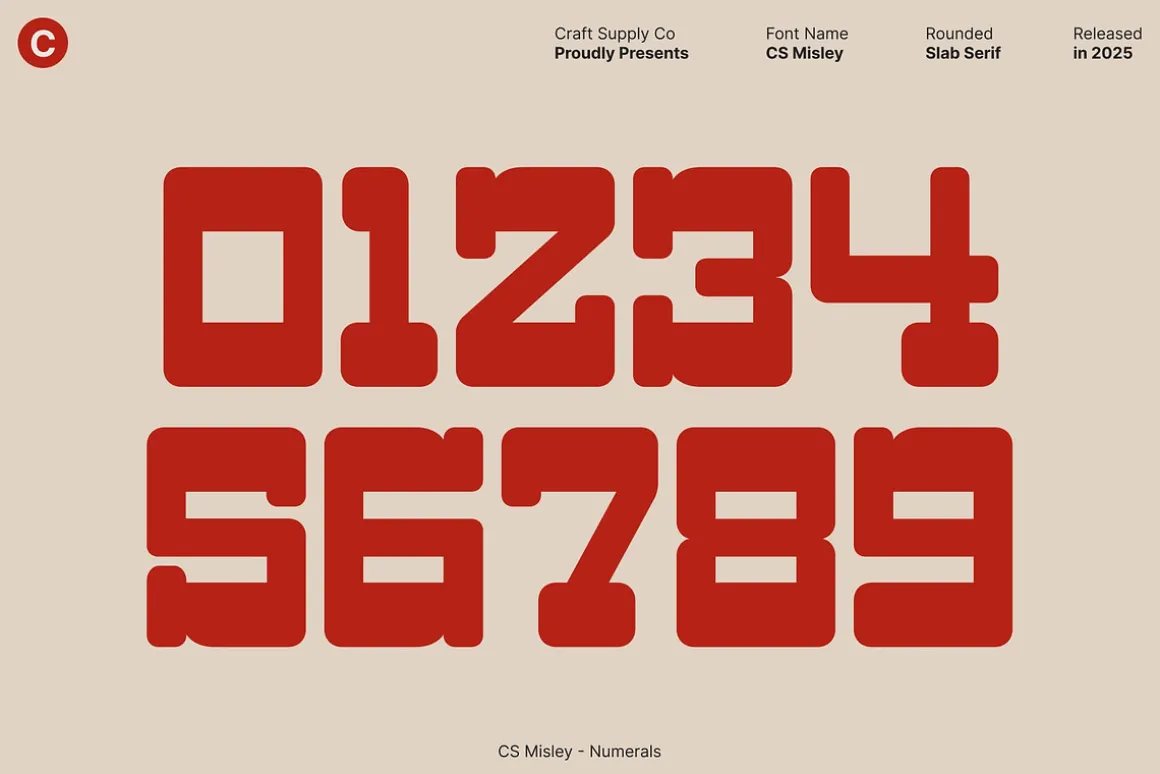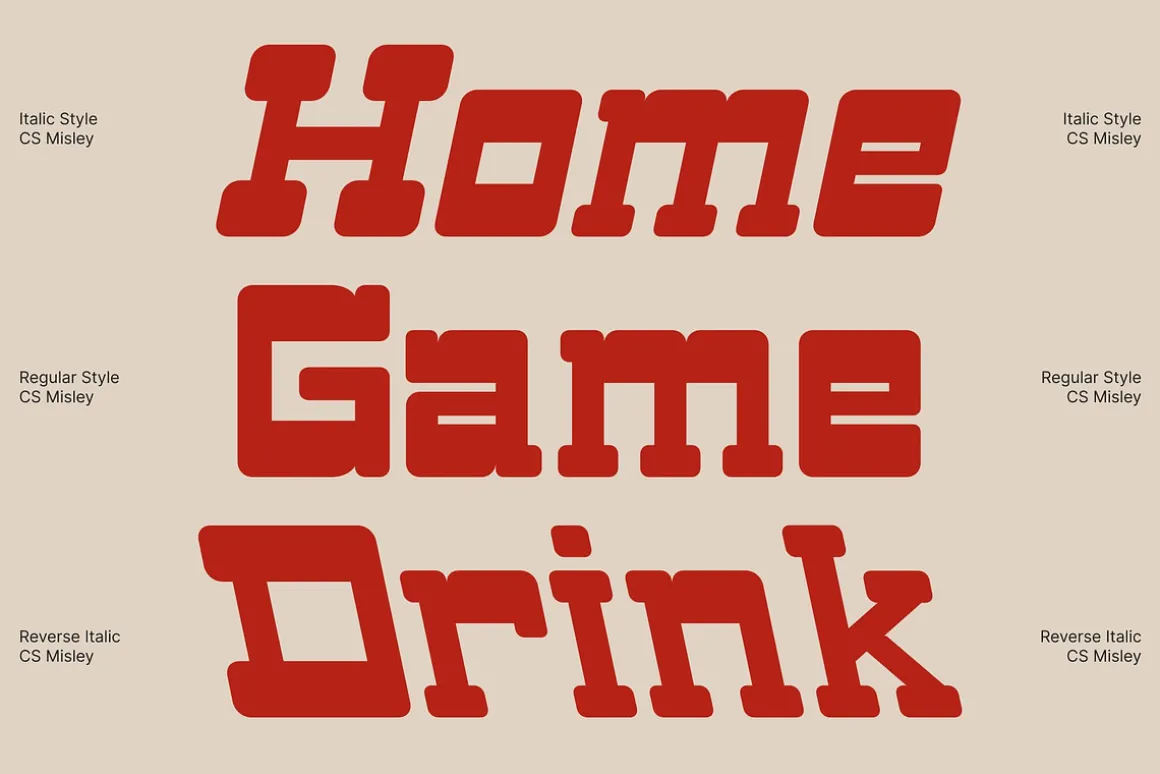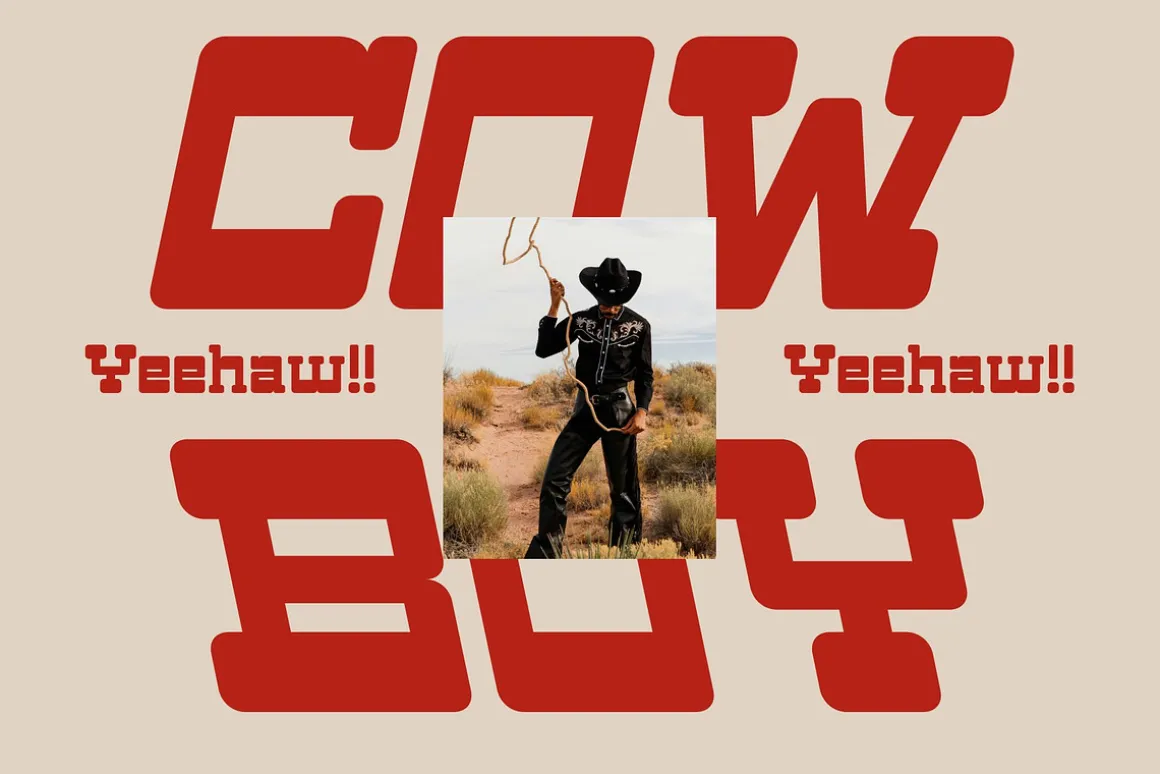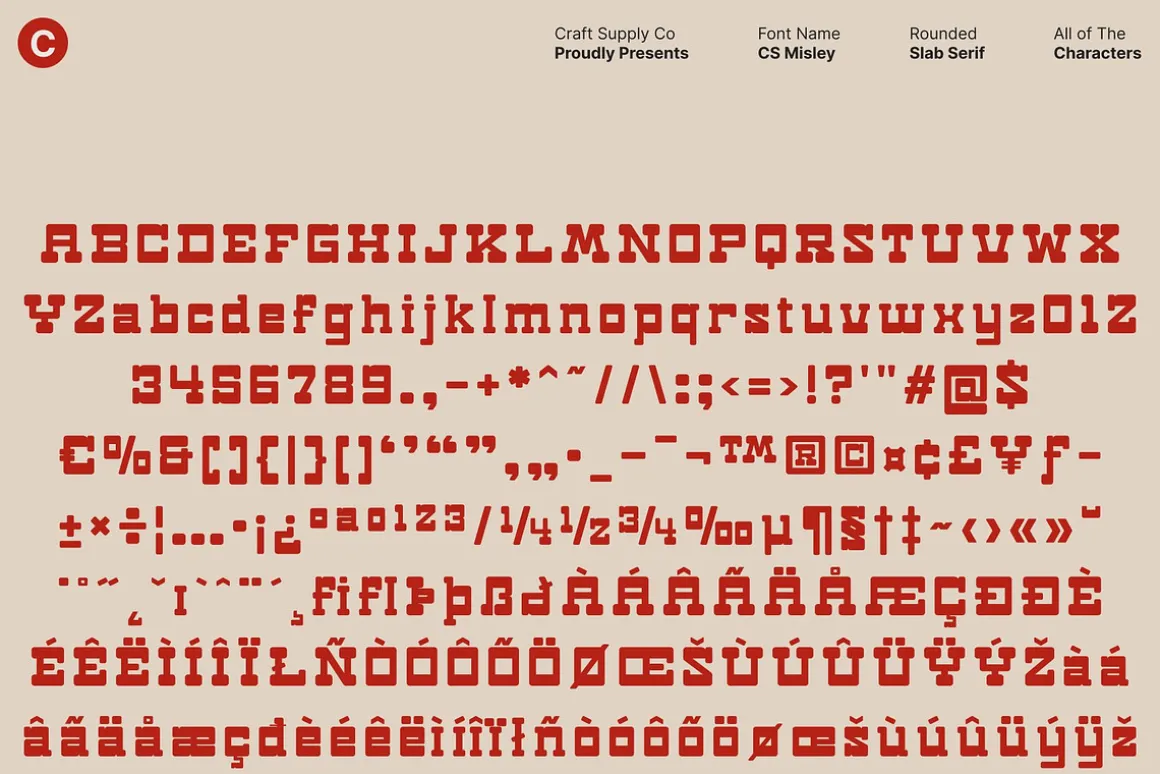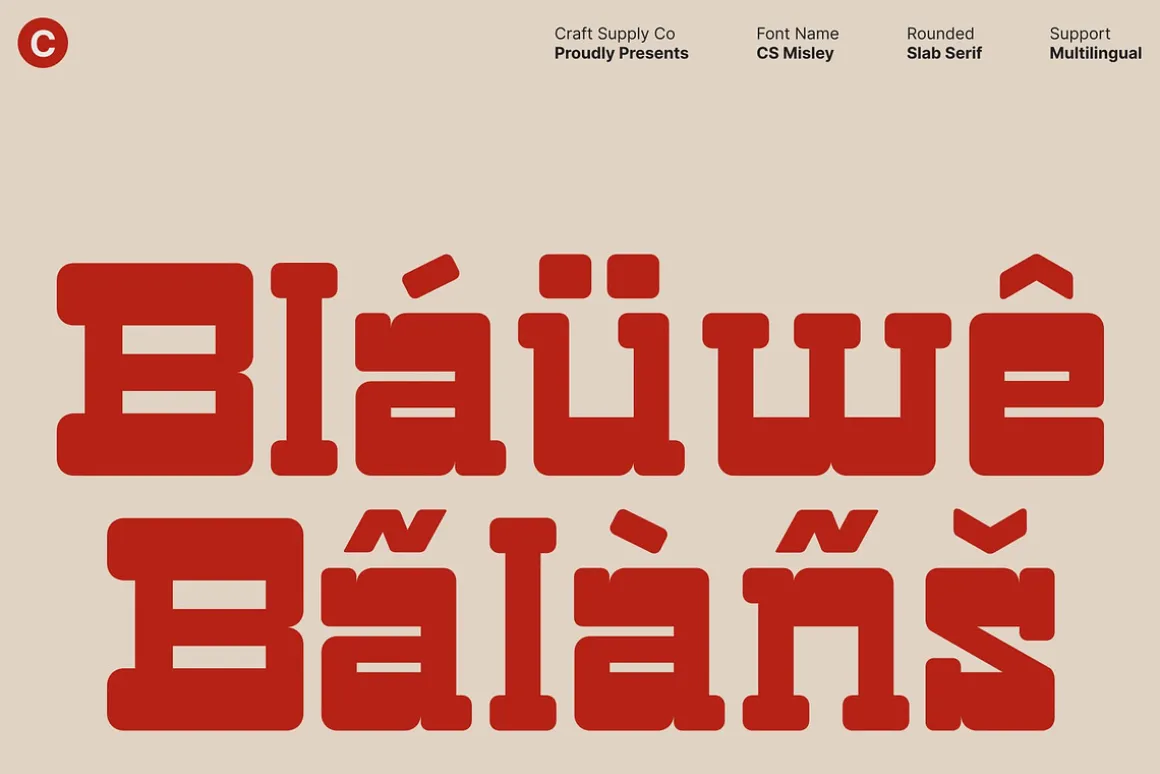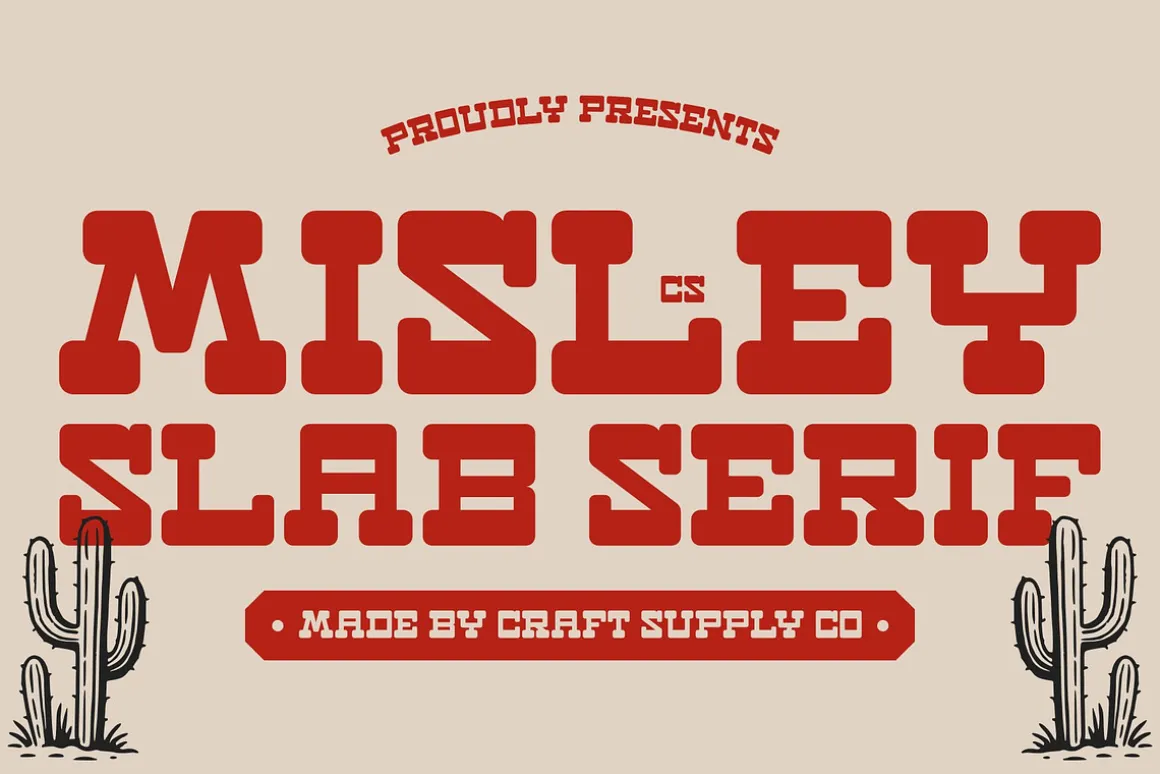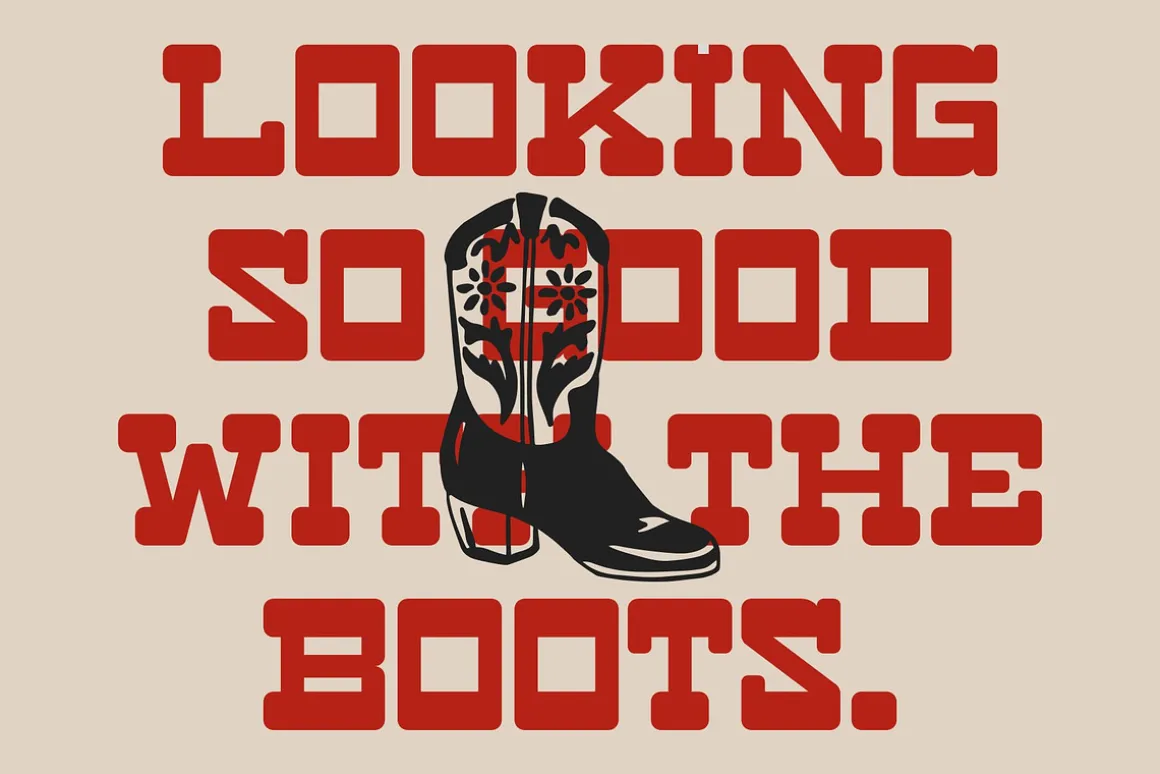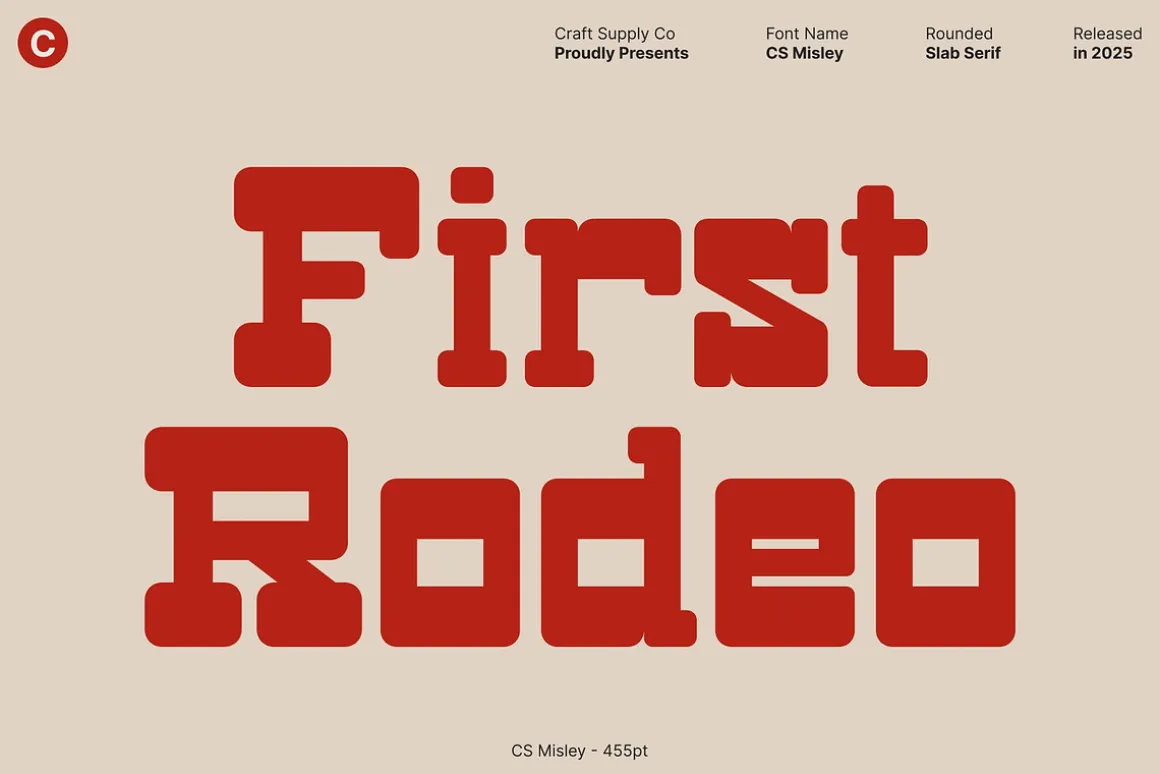
CS Misley – Western Display Font with Rugged Frontier Character
Western Slab Display FontThis is a bold display font inspired by the raw spirit of the Wild West. Drawing from classic frontier signage, this typeface features slab-like serifs and wide letterforms that immediately evoke the atmosphere of cowboy towns, dusty saloons, and hand-painted wooden signs. Its strong presence and rugged construction give CS Misley a distinctive western identity that feels authentic and full of character.
Wide Letterforms with Slab StrengthThe wide proportions of create a powerful and grounded appearance. Each character is built with solid strokes and firm slab serifs, enhancing readability while reinforcing a tough, hard-wearing aesthetic. This structure delivers a bold visual impact, making the font highly effective for display use where strength and visibility are essential.
Rugged Style with Vintage Western FlairThis font captures the grit and charm of classic western typography. Its design reflects tradition, adventure, and resilience, channeling the visual language of frontier-era graphics. The rugged details add personality and storytelling value, making the font perfect for designs that celebrate heritage, craftsmanship, and nostalgic western themes.
Perfect for Posters, Branding, and Themed DesignsDesigned to stand out, excels in posters, branding, packaging, logos, and vintage-themed projects. Its bold western character ensures text commands attention while setting a strong thematic tone. Whether used for cowboy-inspired branding, event promotions, or retro visuals.
- CS Misley Regular
- CS Misley Italic
- CS Misley Reverse Italic
- Uppercase and lowercase characters
- Numerals and Punctuation (OpenType Standard)
- Accents (Supports Multilingual Characters)